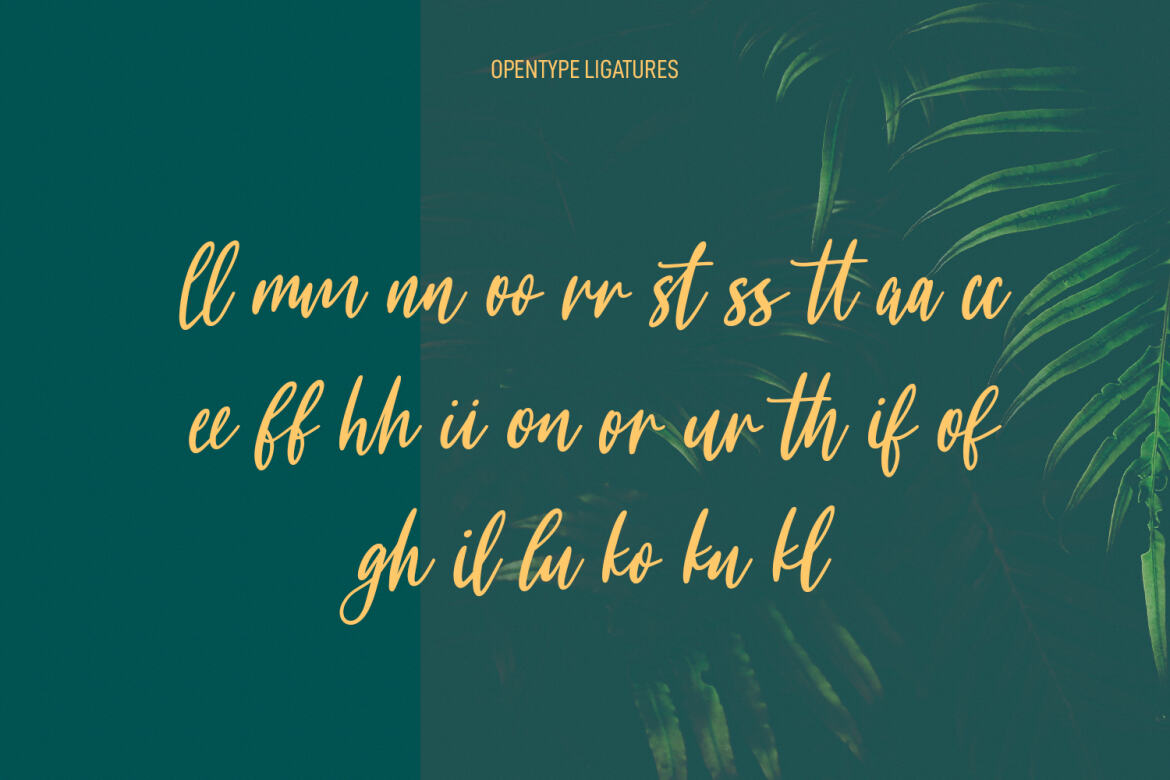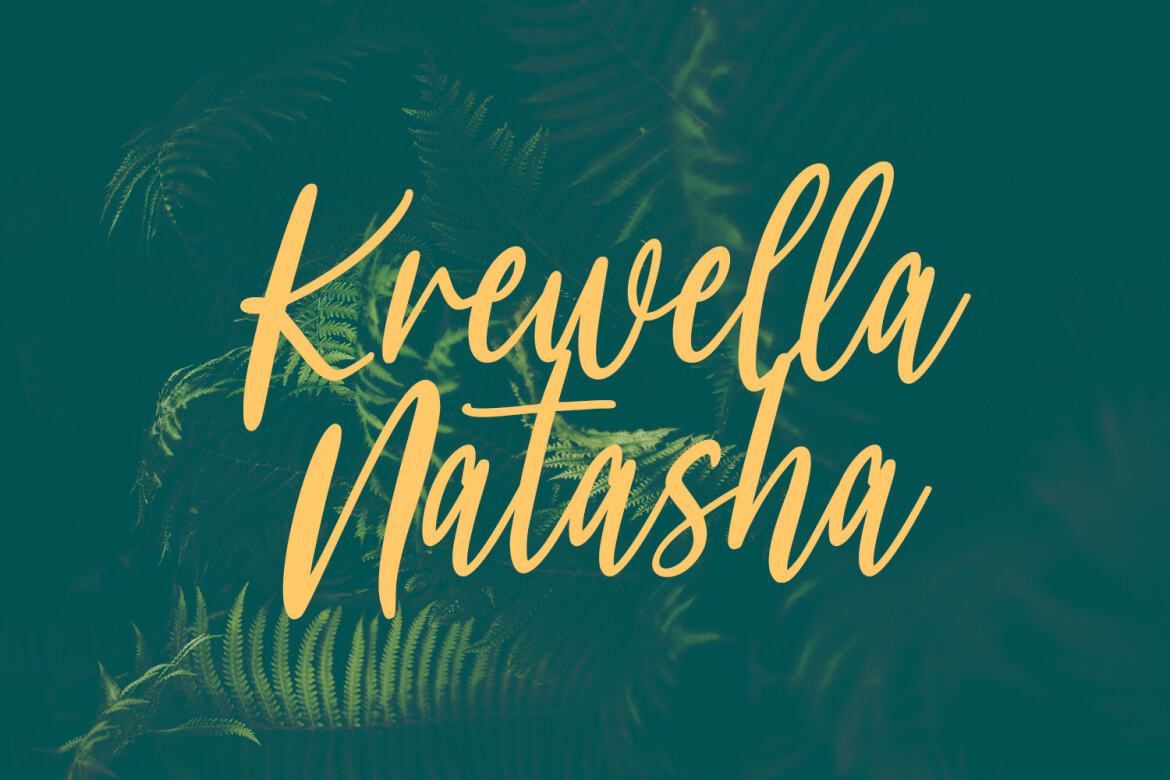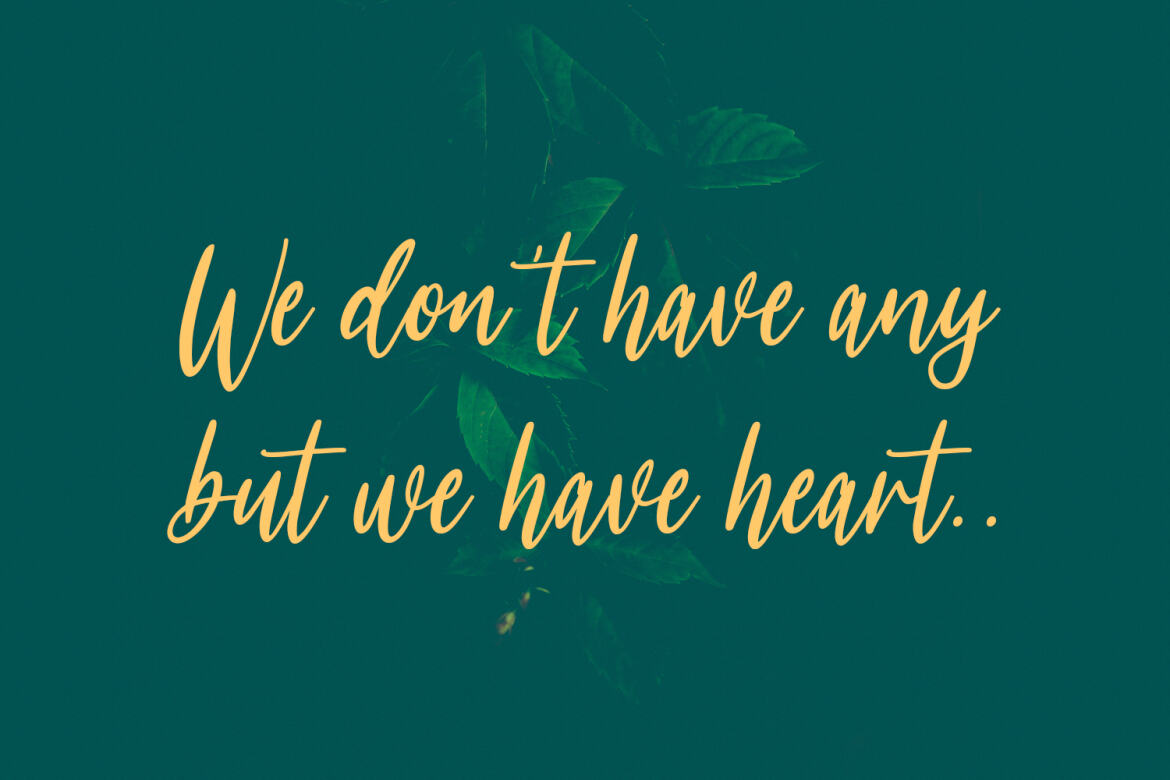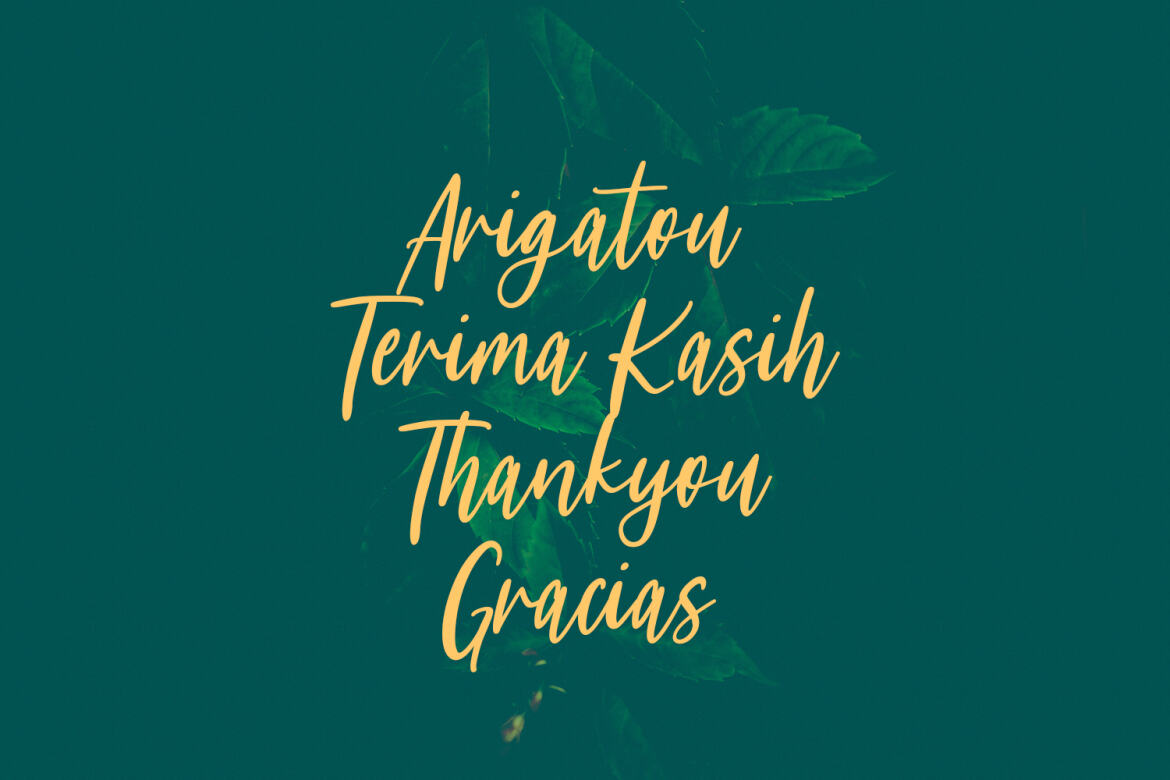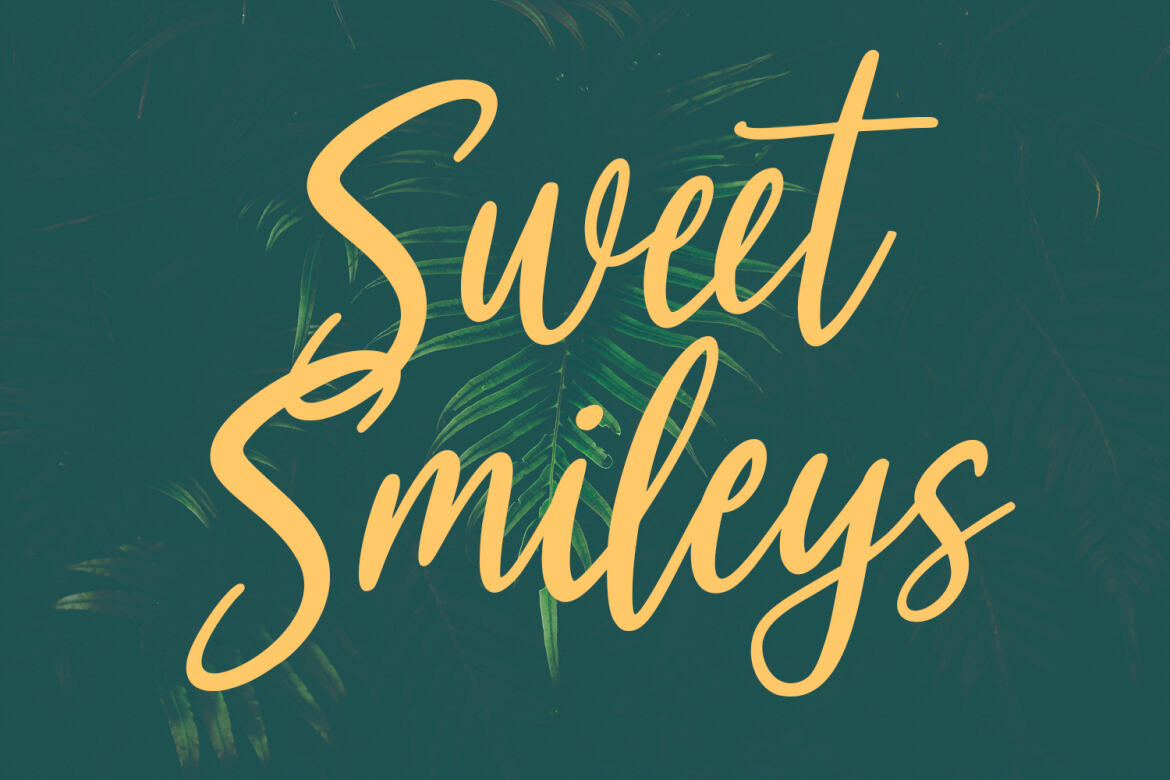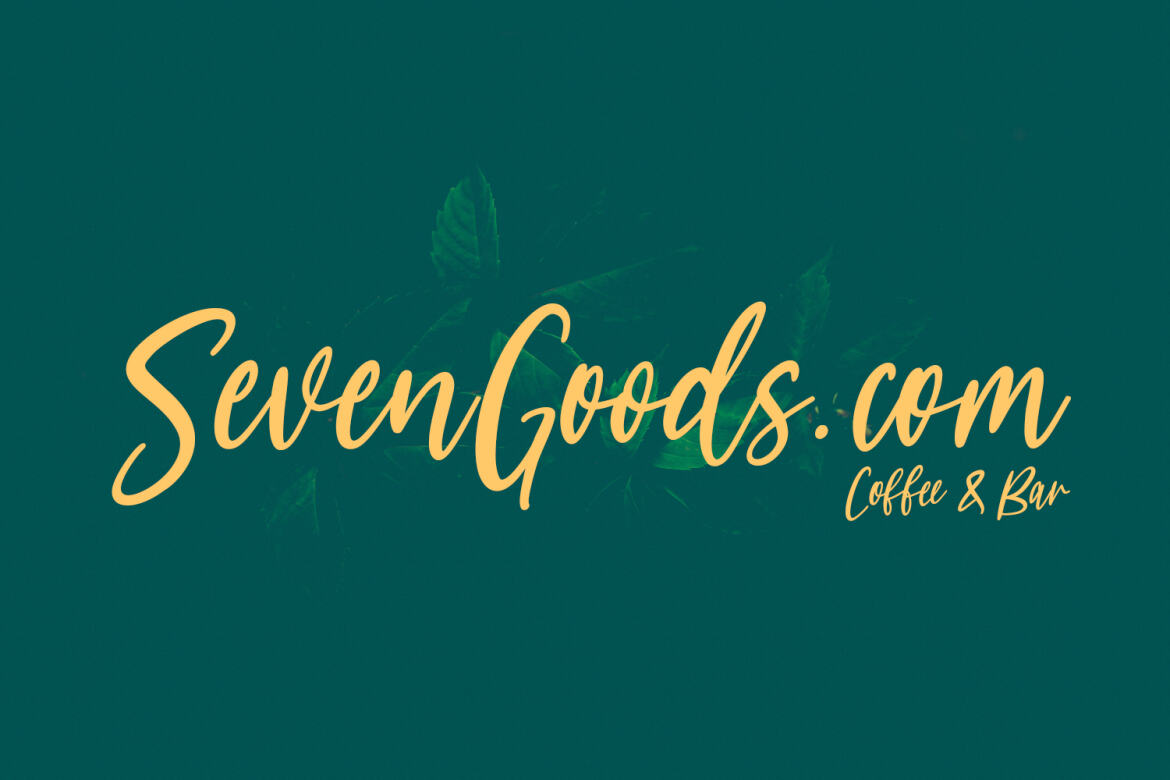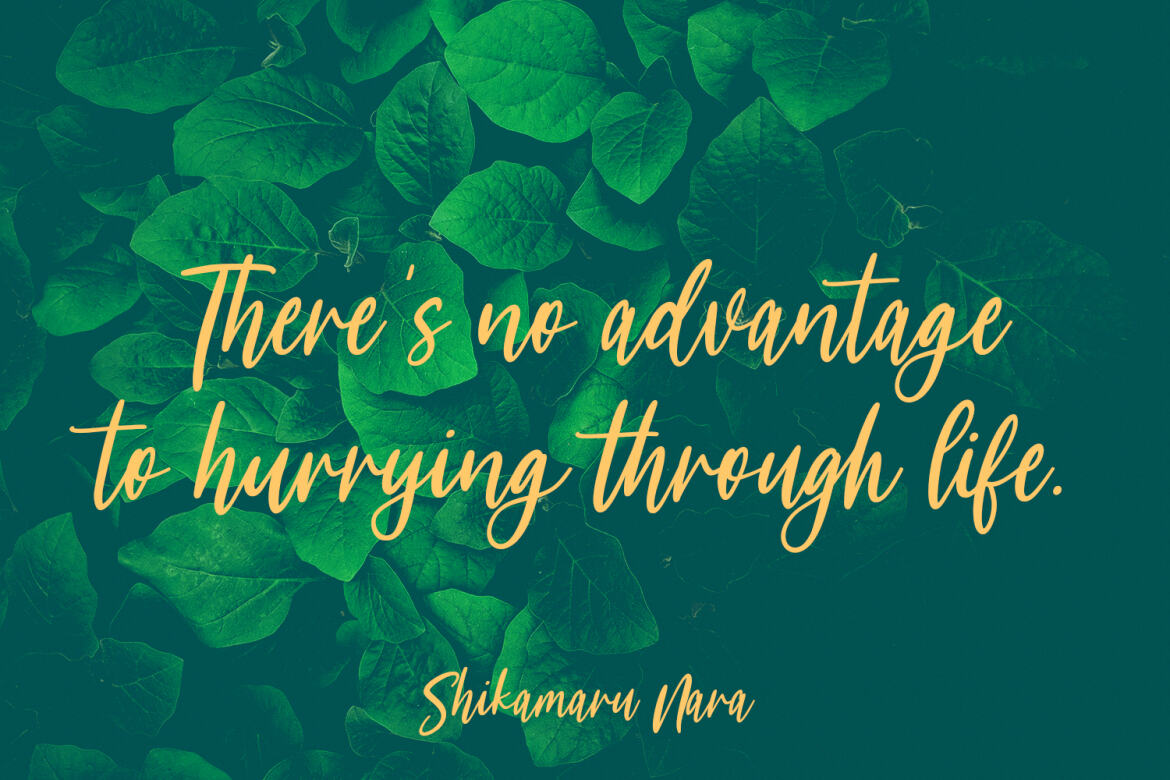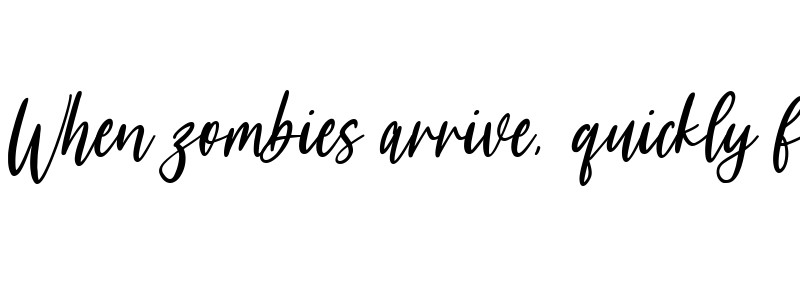
Meganfoxy - Free Script Font
Meganfoxy
Meganfoxy is a casual script font. With medium contrast bold stroke, fun character with a bit of ligatures. To give you an extra creative work. Meganfoxy font support multilingual more than 100+ language. This font is good for logo design, Social media, Movie Titles, Books Titles, a short text even a long text letter and good for your secondary text font with sans or serif. Make a stunning work with Meganfoxy font.